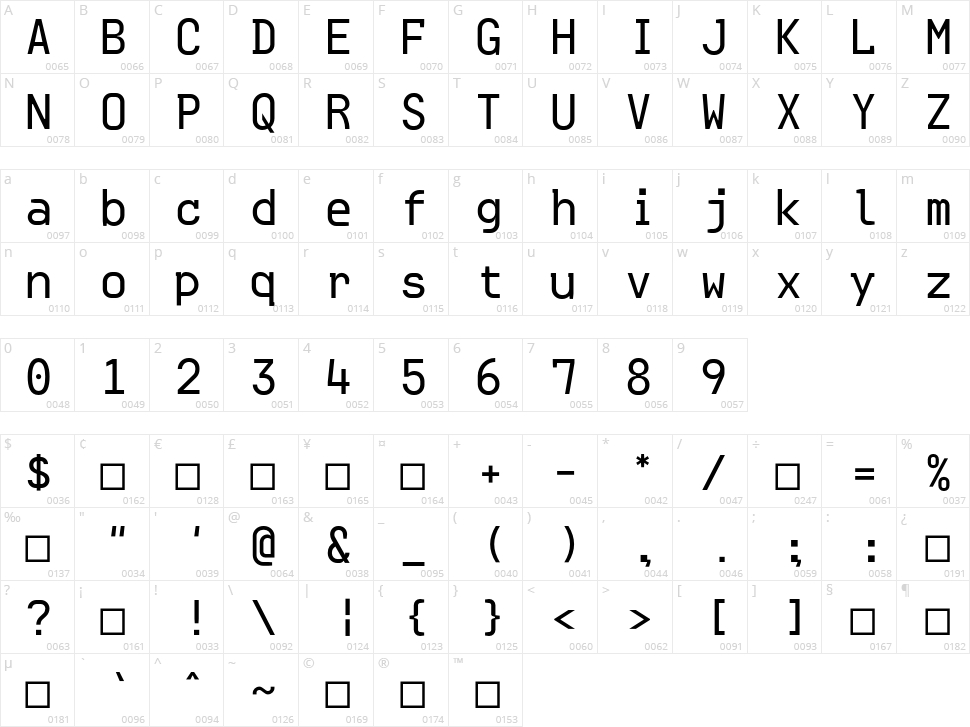
This font is partly inspired by a concept seen on license plates where some characters look intentionally like different creations rather than flipped or rotated variations for the sake of minimizing forgery and fraud, thus the "Defraud" name stemming from this.